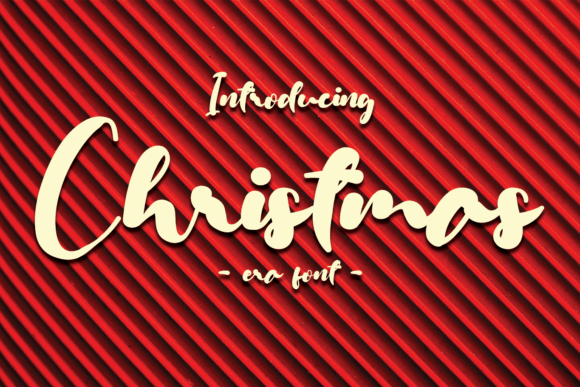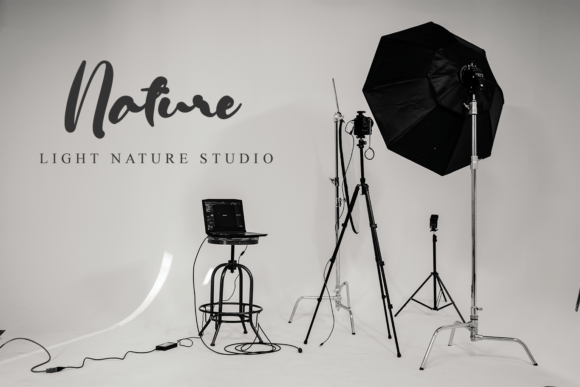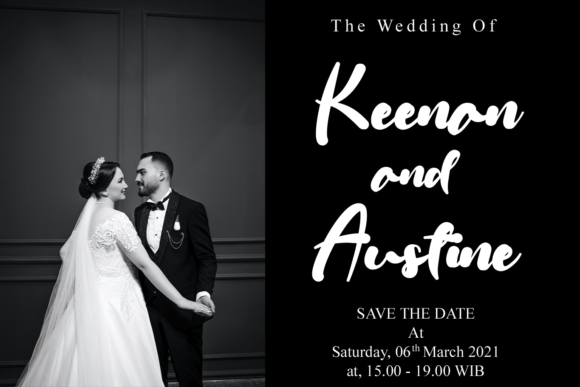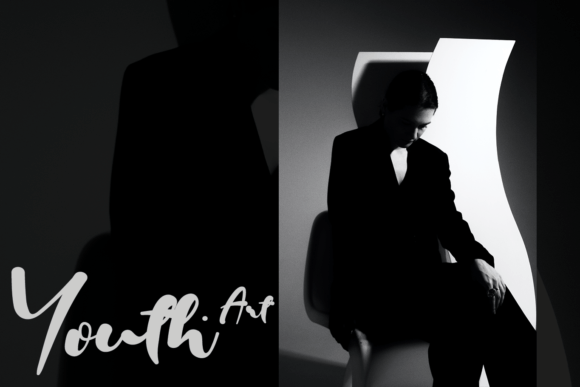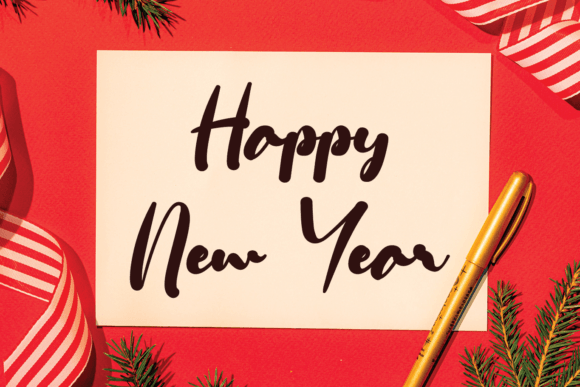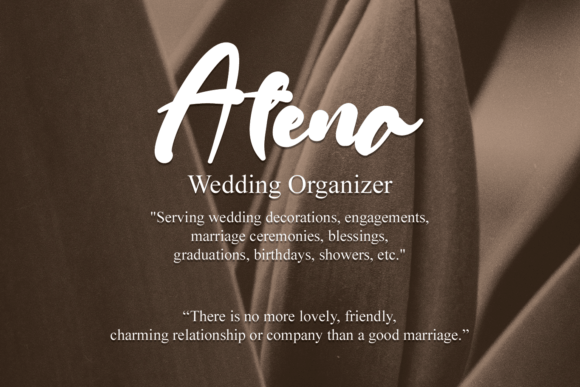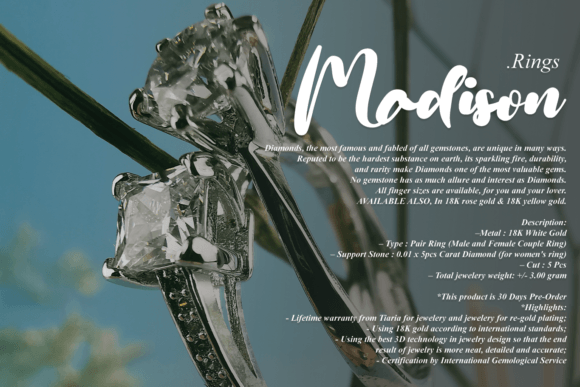
Deck the Halls with Type: Discover the Magic of Christmas Font
Have you ever found yourself brainstorming ideas for a holiday project, only to be struck by the perfect concept at 2 AM on a snowy night? It’s moments like these that make design truly magical. As you start to bring your vision to life, you realize that the right font can make all the difference. That’s where Christmas Font comes in – a charming script font that’s sure to add a touch of festive flair to your designs.
With its playful, dancing characters, Christmas Font is the perfect choice for anyone looking to add a little extra joy to their projects. Whether you’re designing holiday cards, gift tags, or social media graphics, this font is sure to make your creations stand out. As a designer, you know the importance of choosing the right font to convey your message and capture the essence of your brand. With Christmas Font, you’ll be able to create designs that truly shine during the holiday season.
Christmas Font Key Features
- Font Family: Christmas Font is a unique, hand-drawn font family designed to evoke the spirit of Christmas. It includes a variety of ornaments and decorations to enhance holiday designs.
- Character Count: The font family includes over 1,000 characters, including uppercase and lowercase letters, numbers, punctuation marks, and ornaments.
- Unique Characteristics: The font features intricate, hand-drawn designs, including ornaments, garlands, and festive decorations, making it perfect for holiday designs.
Christmas Font Review
At first glance, Christmas Font appears to be a fun and festive addition to any holiday-themed design. ✨ The bold, cursive script is reminiscent of classic Christmas cards, and the bold red and green colors are sure to evoke a sense of cheer. ✨ The font is also highly customizable, with options to adjust the size, color, and style of the text.
However, there are some limitations to consider. ⚠️ One of the main issues is that the font can be quite overpowering, making it difficult to read in large quantities. ⚠️ Additionally, the font’s bold lines and decorative elements can make it look a bit childish or amateurish. ⚠️
- ✨ Fun and festive design
- ✨ Highly customizable
- ✨ Suitable for holiday-themed designs
- ⚠️ Can be overpowering in large quantities
- ⚠️ May look childish or amateurish
- ⚠️ Limited flexibility for non-holiday designs
In conclusion, Christmas Font is a fun and festive addition to any holiday-themed design. While it may have some limitations, it’s a great option for those looking to add some holiday cheer to their designs. Just be sure to use it in moderation and balance it with other design elements to avoid overpowering the reader.
Use Christmas Font to add a festive touch to your designs, such as:
- Creating holiday greeting cards and invitations.
- Designing festive social media posts and advertisements.
- Adding a touch of whimsy to your blog or website content.
Remember to experiment with different font sizes, colors, and styles to find the perfect look for your design.
Alternatives to Christmas Font for Designers
Great Vibes is a modern, elegant script font perfect for creating a festive atmosphere without being too over-the-top. It’s ideal for holiday cards, invitations, and social media graphics. Compared to Christmas Font, Great Vibes is more versatile and works well in a variety of design contexts.
Carolyna Pro is a sophisticated, handwritten font that evokes a sense of luxury and sophistication. It’s perfect for high-end holiday marketing campaigns, luxury gift packaging, and upscale event invitations. Compared to Christmas Font, Carolyna Pro is more polished and refined.